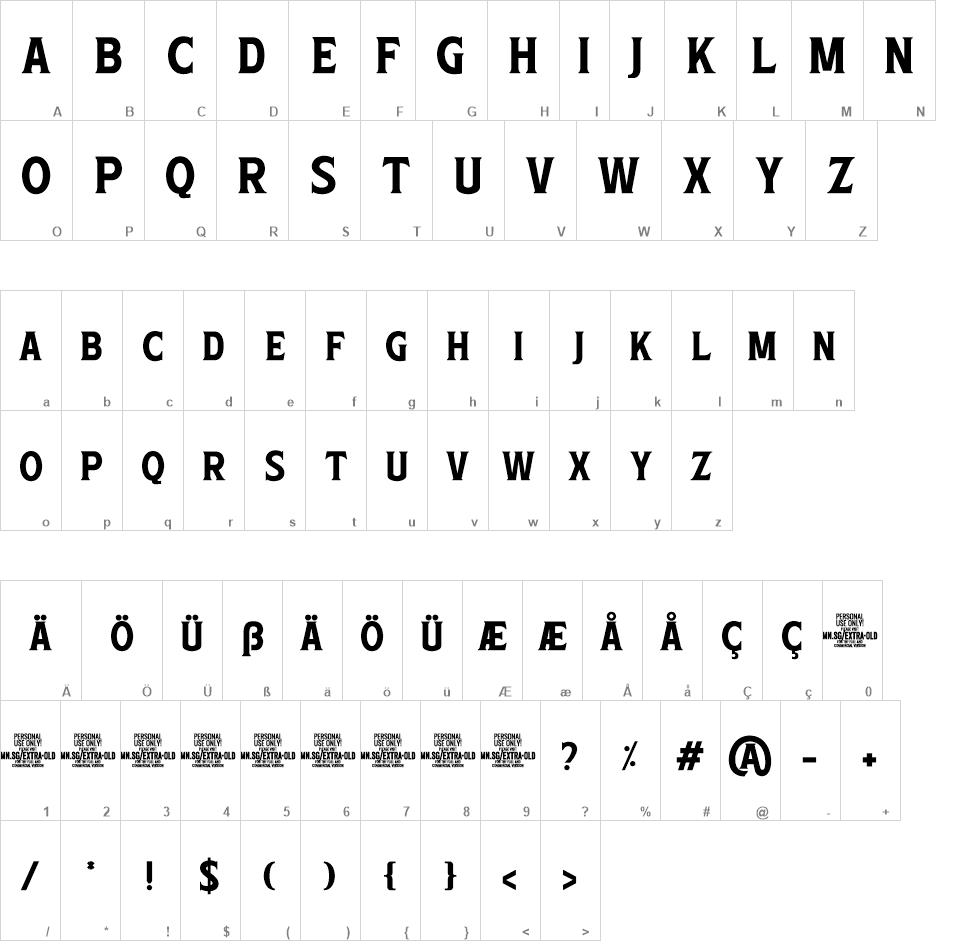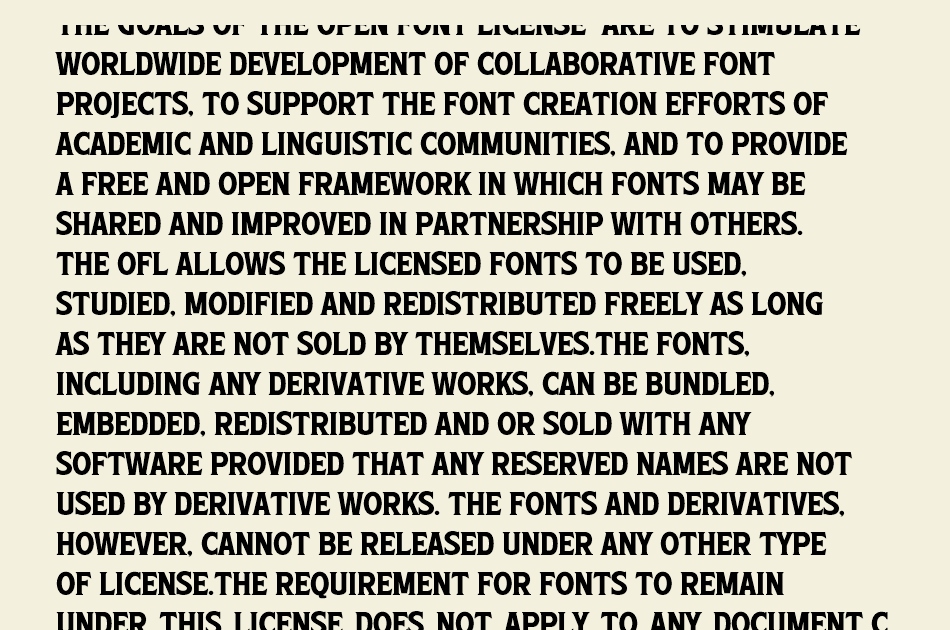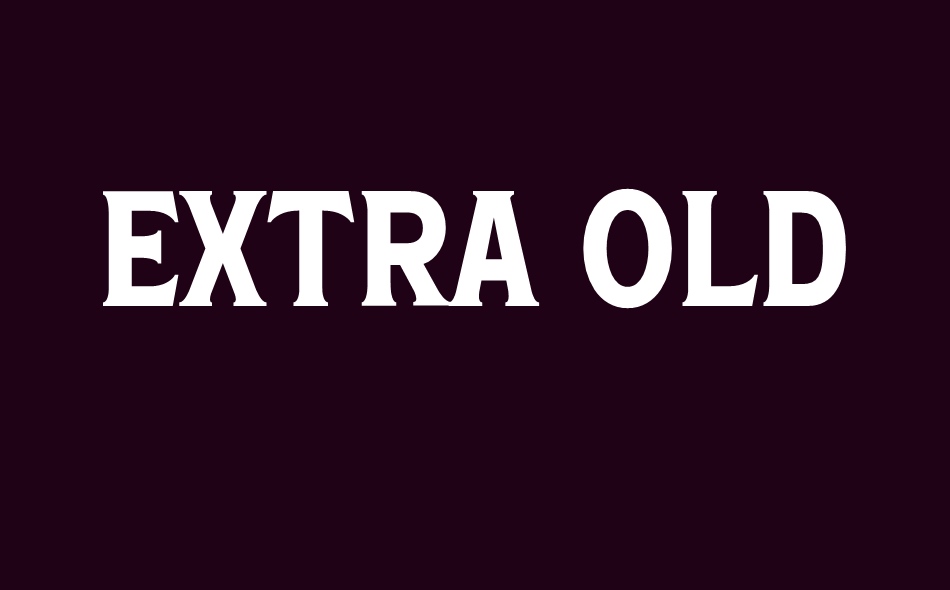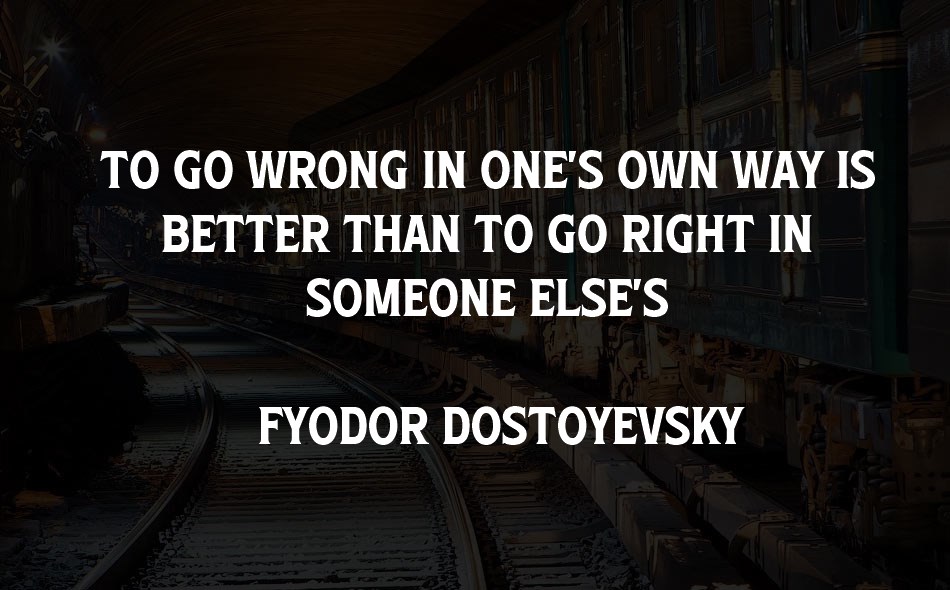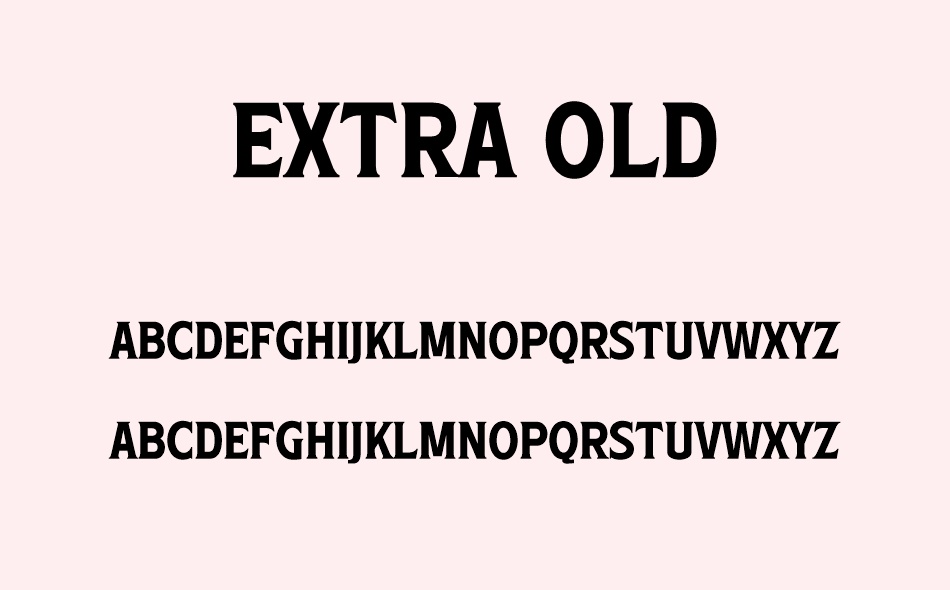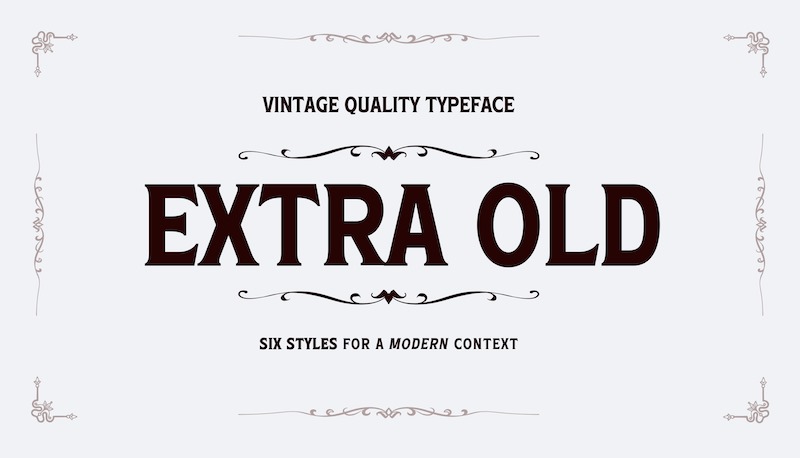
Extra Old font
Extra Old is a vintage serif typeface.
With heavy strokes and minuscule serifs, this classic font family is the perfect lettering for a headline to emit genuine quality. Why not use Extra Old for a traditional logo or balanced product label.
Created with pride and care, this type has the optimal appearance of a classic vintage logo but for a modern setting.
The font family consists of Regular and Italic, as well as Bold and Bold Italic.
Also included are the font styles Coaster and Floria Corner, two typefaces for beautiful decorative elements, combining with the lettering.
The font is built with advanced OpenType functionality and has a guaranteed top-notch quality, containing stylistic and contextual alternates, ligatures and more features; all to give you full control and customizability. It has extensive lingual support, covering all Latin-based languages, from Northern Europe to South Africa, from America to South-East Asia. It contains all characters and symbols you'll ever need, including all punctuation and numbers.